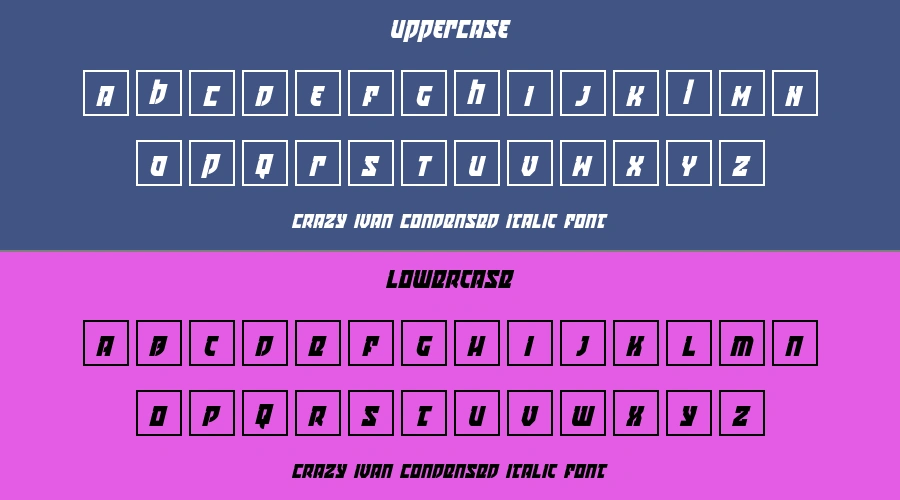
About Crazy Ivan Condensed Italic Font
Crazy Ivan Condensed Italic Font stands out for its distinctive combination of commanding presence and professionalism. Ideal for packaging hero, it provides the memorability and technical precision that professional projects demand. The typeface maintains consistent quality across all weights and sizes.
Key features include refined ink traps and practical superior letters, enhancing typographic expression. In heritage publications applications, Crazy Ivan Condensed Italic Font demonstrates exceptional digital conversion. The stem weight and artistic merit contribute to its distinctive character and professional appeal.